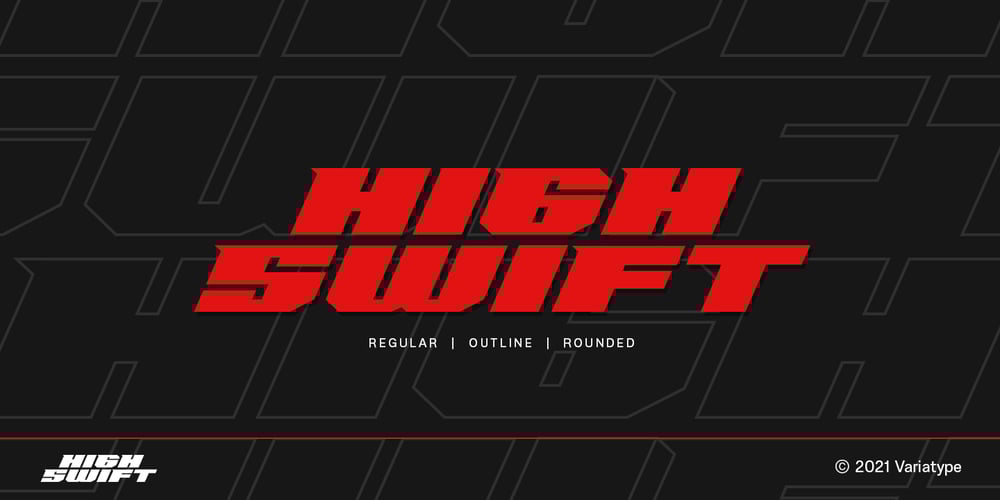
High Swift
High Swift font
High Swift Font Family was designed by Mukhlis Muhammad and published by Variatype. High Swift contains 4 styles and family package options. ABOUT THIS FONTHigh swift is a sporty & dynamic style display font that designed for modern corporate branding, copy ads, and much more. Recommended for a high-performance brand.FONT FEATURES- Additional Accents- 65 LanguagesSOFTWARE RECOMMENDATION- Adobe Photoshop- Adobe Illustrator- Adobe InDesign- Affinity Designer